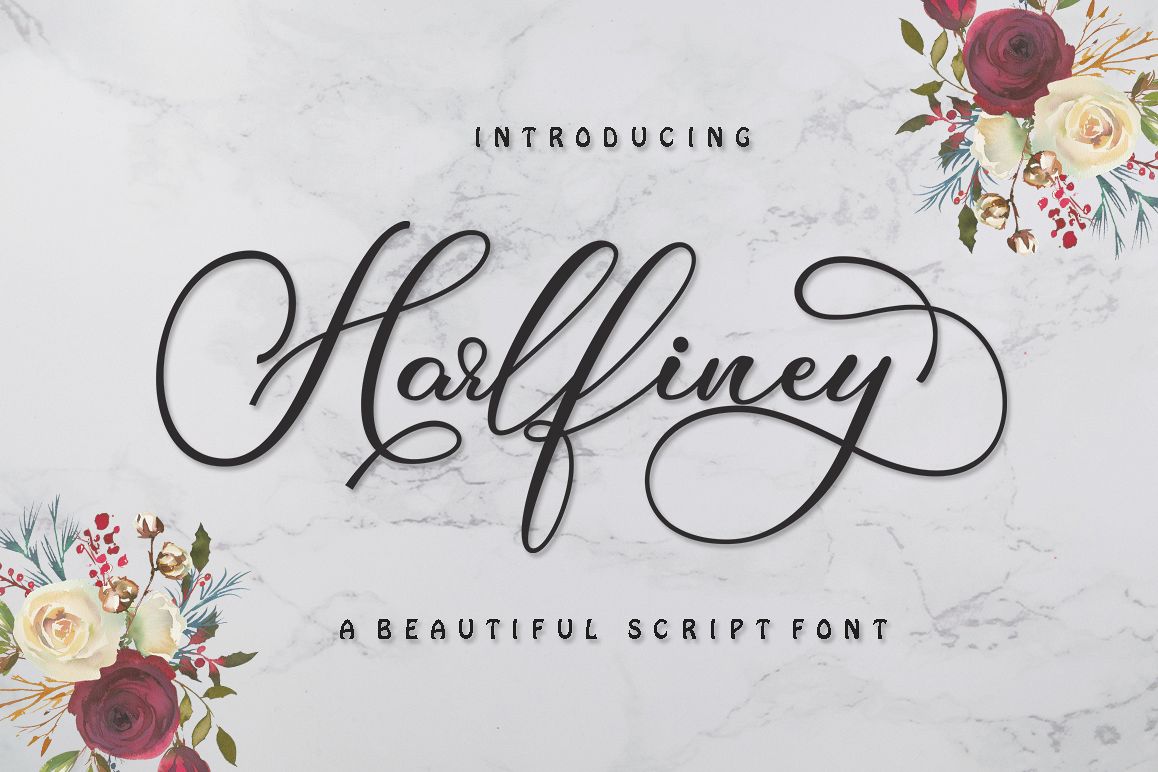
Introduce Harlfiney is a beautiful modern calligraphy font with dancing lines. This handwritten manuscript will look stunning in all your designs, wedding invitations, branding materials, logos, business cards and quotes.WHAT'S INCLUDED. Harlfiney contains standard characters, lowercase letters, uppercase letters, numbers, punctuation marks, binders and international characters. This font also comes with two alternative lowercase character sets with initial and final strokes. You will receive OTF and TTF files. Thank you so much for your visit. regards, IM Studio